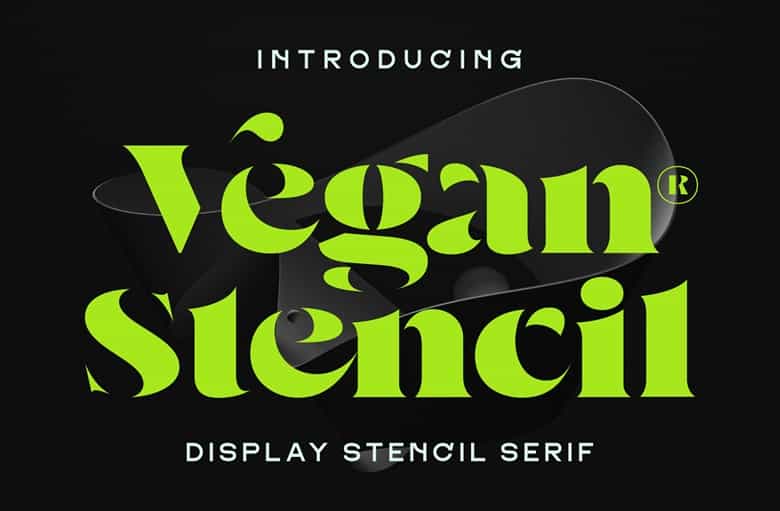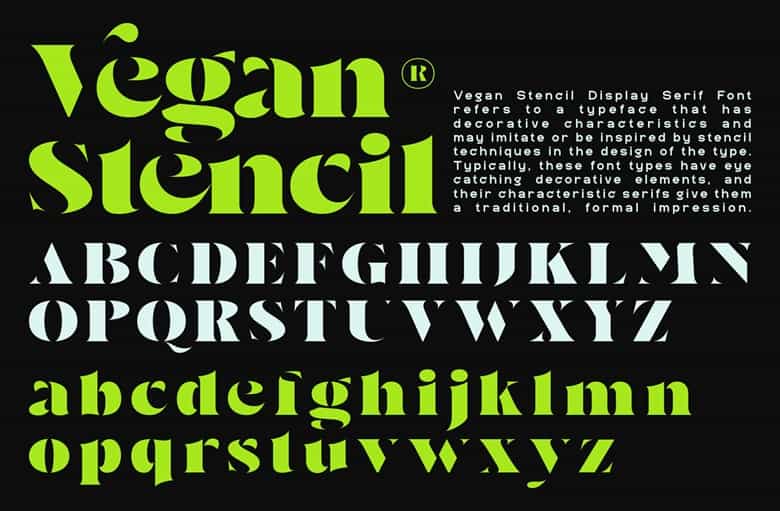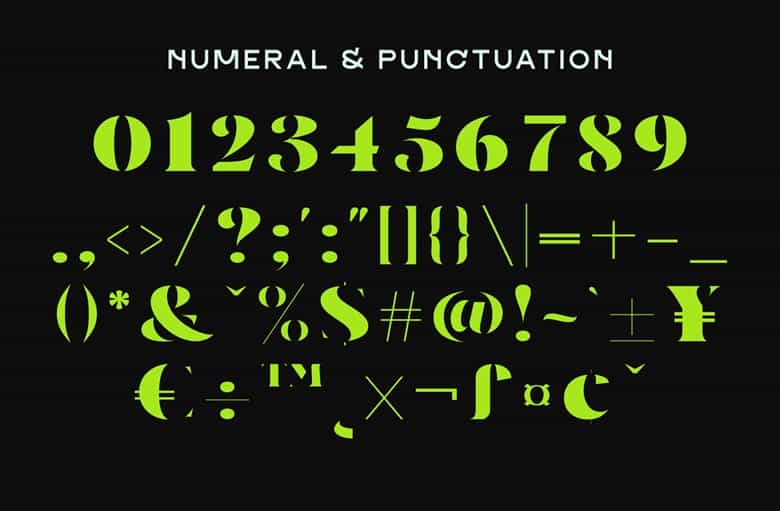
Vegan is a very edgy and clear stencil typeface that would be well suited to making a statement. It has a unique look and feel that makes it suitable for uses such as adverts, headers, billboards, and logos. If Vegan is used for marketing plant-based products or for providing an overall futuristic look to the font of a logo, it will meet all such requirements.